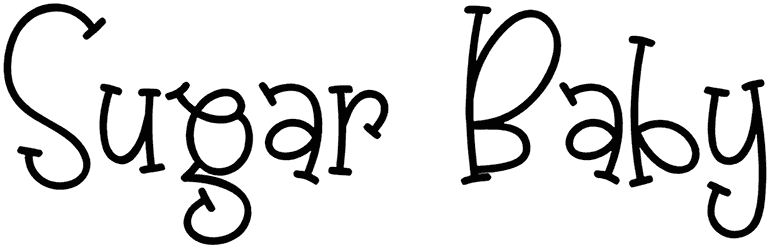
Sugar Baby Font
Share your creative ideas and get everyone involved with Sugar Baby, a cute, playful cartoon font perfectly balanced in a fun way to bring a sense of adventure and amusement.
It is easy to read, including all the characters you need; as a result, you can use it in both the title and the body text. Last but not least, this doodle font will work well for toy products, T-shirt printing, children’s storybooks, party invitations, and video games.
Sugar Baby is a relaxed and quirky handwritten font. It is the best choice for creating eye catching logos, branding and quotes. Every letter has a unique and beautiful touch, which will make your design come alive!